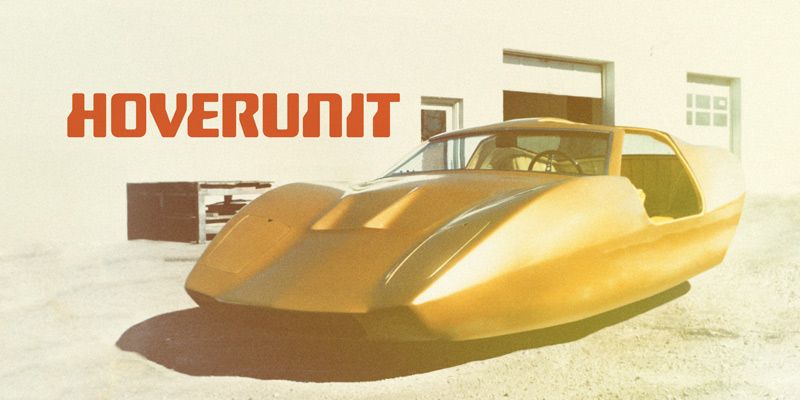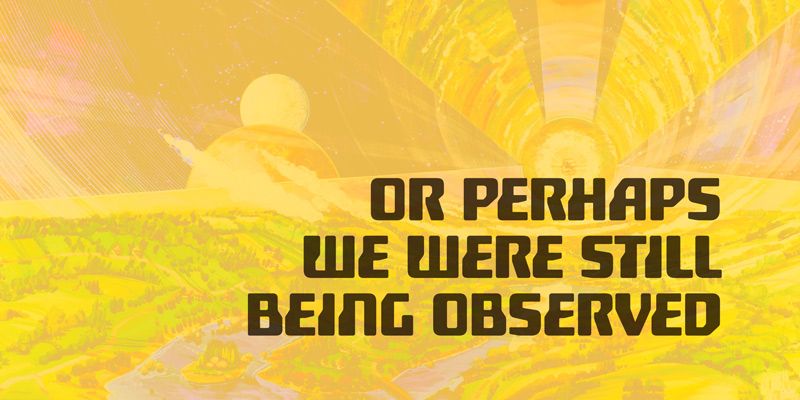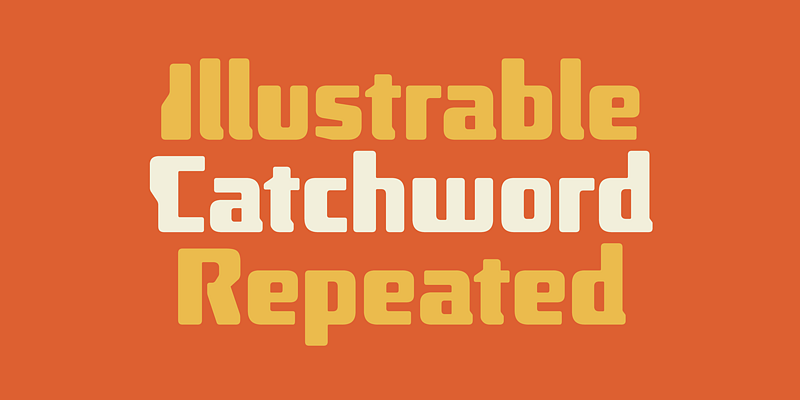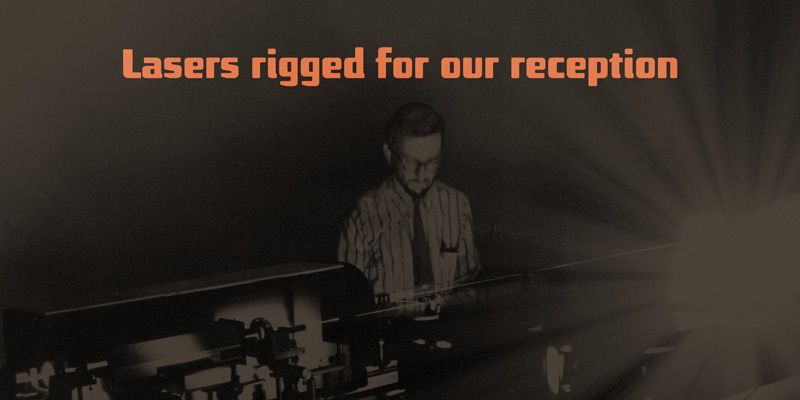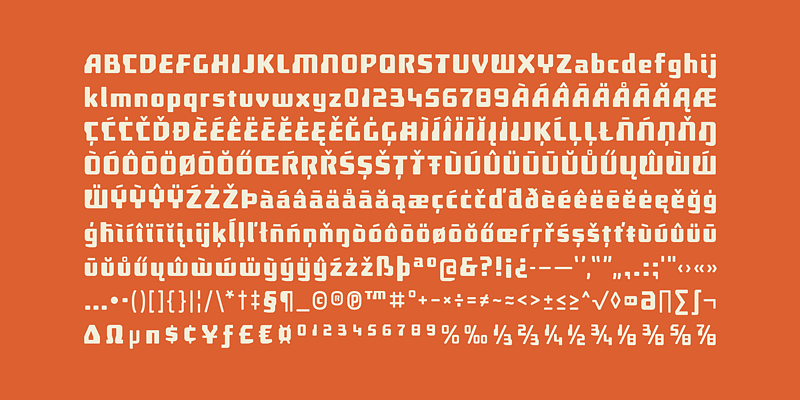
Hoverunit takes the squared shapes and interrupted strokes of machine-readable lettering into the realm of science-fiction display. Its broad, sturdy forms can make a short name feel like it belongs on a control panel, spacecraft housing, arcade cabinet, or futuristic product box. The cuts supply a mechanical beat without turning every character into a code. Hoverunit works best when the machine imagery is part of the story and the word itself still needs to be read quickly.